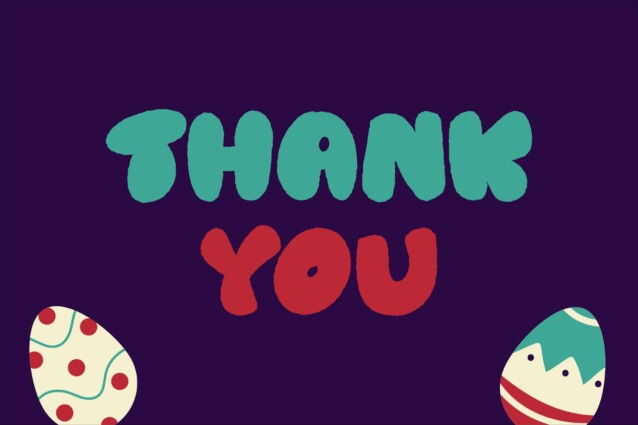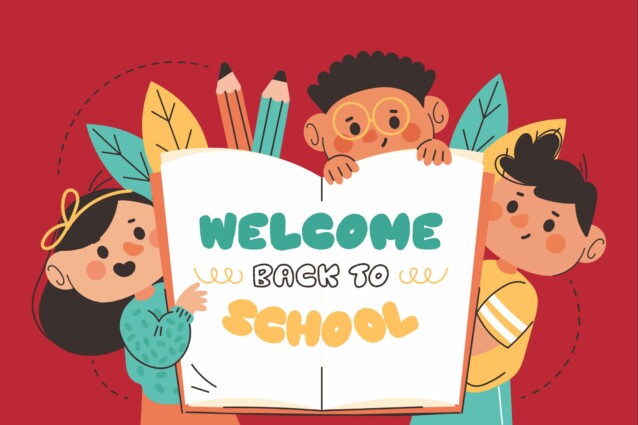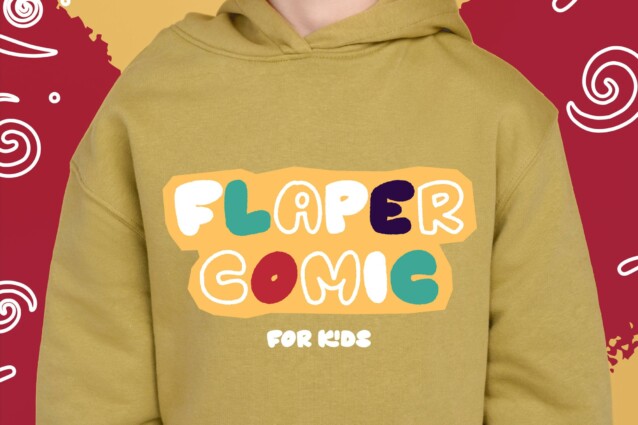
Mockind Easter Font
Mockind Easter Font is a Quirky Display Font, suitable for any projects such as: logos, branding projects, homeware designs, product packaging, mugs, quotes, posters, shopping bags, t-shirts, book covers, name card, invitation cards, greeting cards, label, photography, watermark, special events, and all your other lovely projects that need a beautiful script taste.